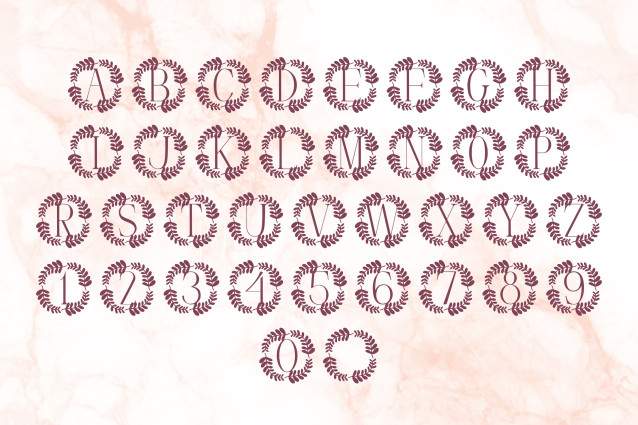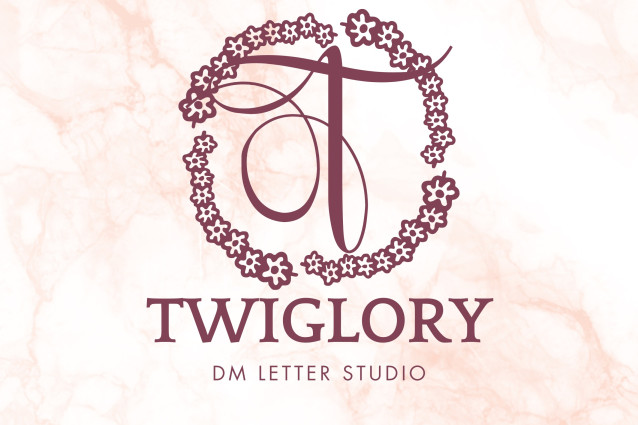
Twiglory Monogram Font
Twiglory Monogram Font is a sophisticated serif font adorned with charming twig-inspired flourishes. Each uppercase letter is wrapped in delicate botanical embellishments, evoking a rustic yet refined aesthetic. Ideal for personalized projects, wedding stationery, branding, and handcrafted decor.